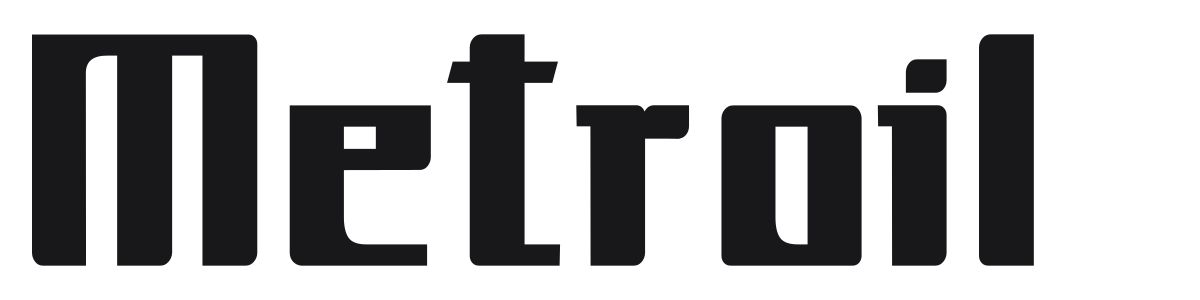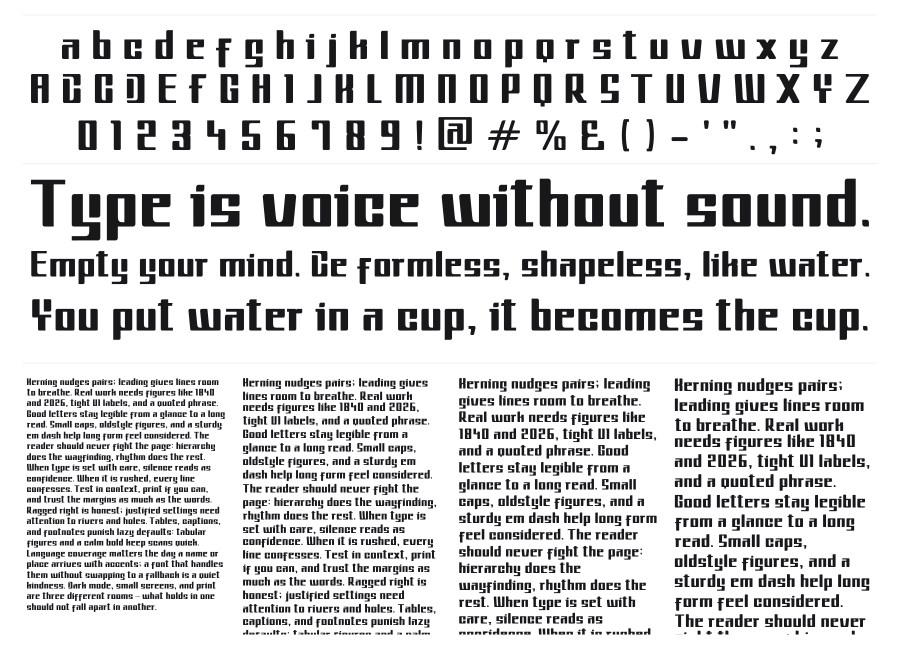
Metroil
Metroil is a heavy geometric display font built from thick, rectangular modules with sharp notched joints and flat terminals. The blocky, near-monoweight construction gives it an industrial metro-sign quality that works well on posters, sports jerseys, and product logos. It carries a retrofuturist edge that sits somewhere between 1970s transit signage and contemporary streetwear.